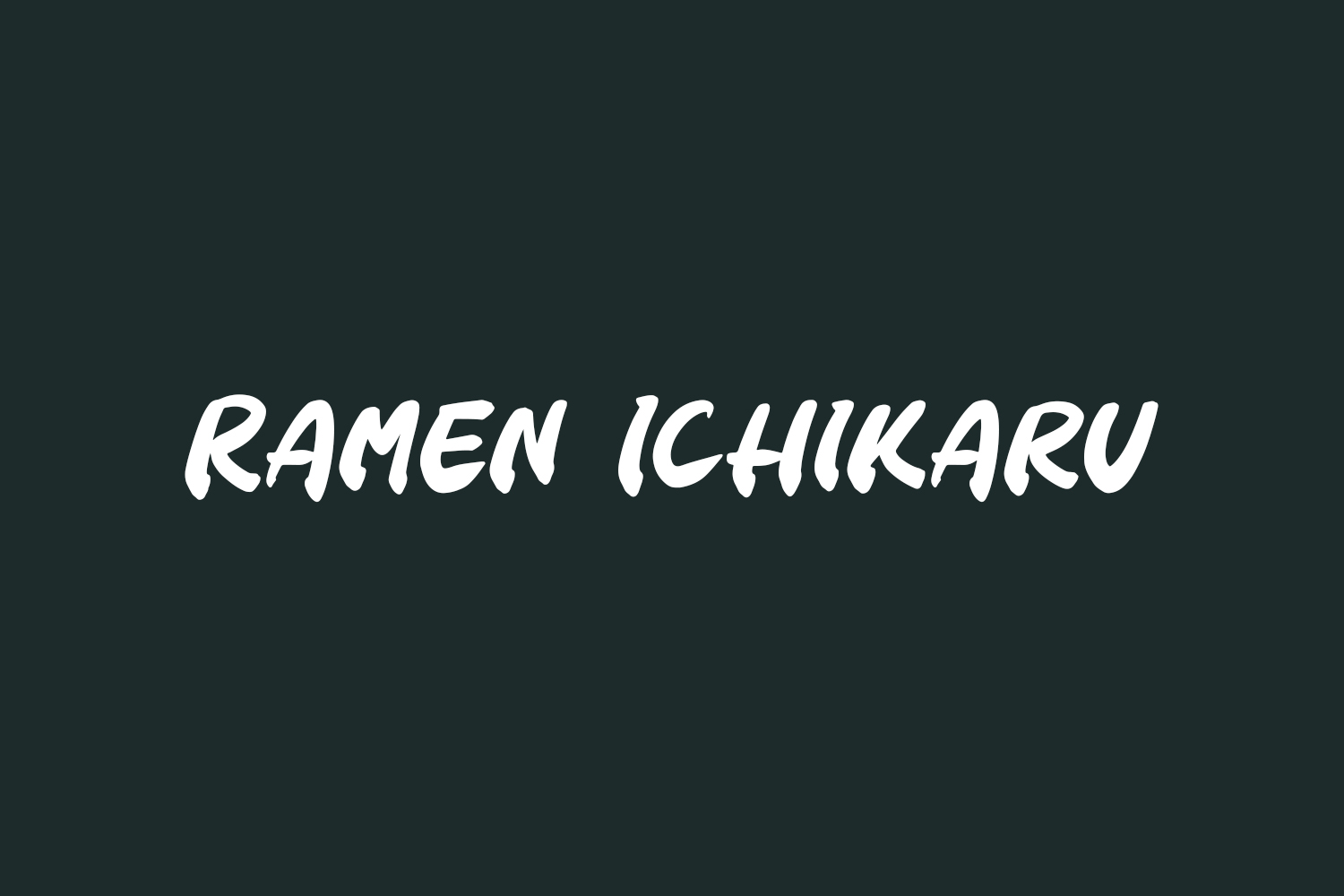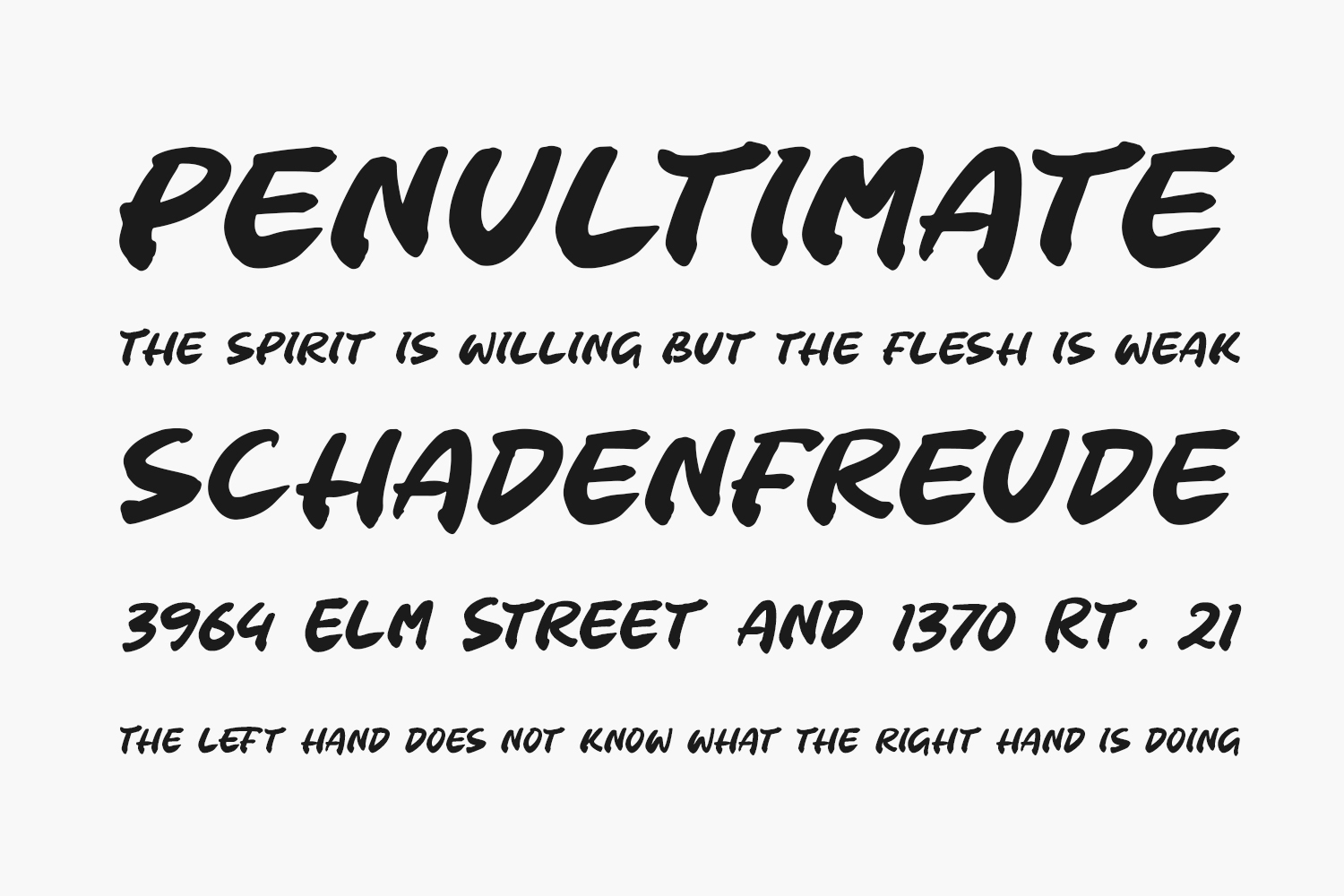
Ramen Ichikaru Free Font presents a striking display font perfect for a wide range of creative ventures, including logos, branding projects, homeware designs, product packaging, mugs, quotes, posters, shopping bags, T-shirts, book covers, name cards, invitation cards, greeting cards, labels, photography, watermarks, special events, and any other delightful projects that demand an elegant touch. Ramen Ichikaru Free Font is free for personal use only. Please purchase the full version for commercial use.
Designed by Letterena Studios